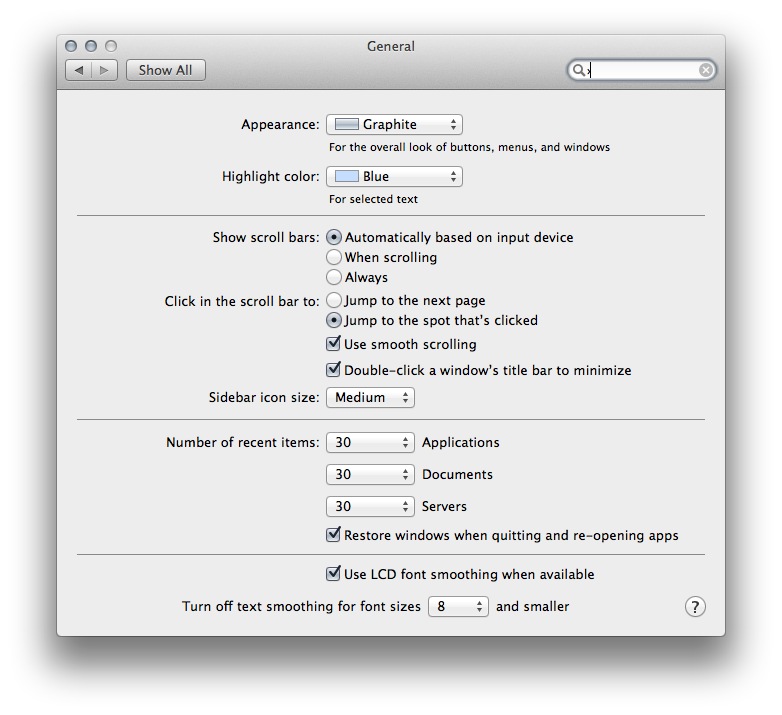
I just picked up my first Mac ever, one of the new 27 inch iMacs, but already I I've discovered what will likely be a deal breaker for me in regards to keeping it. I've noticed that the font rendering on web pages both in Safari and Chrome is strikingly different than how things look on PC. In fact, if this is how things are supposed to be I wonder how any professional develops websites on a Mac. Here's a look at what I'm talking about:
Now compare the same page to this PC version:
The PC version to me looks way better, and seems to be a better reflection of the designers intentions. Look at the text that says "We've got 1500 beta keys". You will notice on the PC version the text is thin but the mac version makes it look semi-bold. Same effect happens all over the place, like the words "This is a test". On the little side blurb with user info like my join date, last visit, ect. Mac makes it look bold again when it shouldn't. Even text that is supposed to be bold looks worse on Mac, such as the word "Related" which is a blurry mess (the "e"s are so blurry it's hard to make out that it is an e). The word Achievement is also far less clear on the Mac.
Couple of things going on here.
Important non-disputable fact #1:
Apple and Microsoft have always disagreed in how to display fonts on computer displays. Today, both companies are using sub-pixel rendering to coax sharper-looking fonts out of typical low resolution screens. Where they differ is in philosophy.
• Apple generally believes that the goal of the algorithm should be to preserve the design of the typeface as much as possible, even at the cost of a little bit of blurriness.
• Microsoft generally believes that the shape of each letter should be hammered into pixel boundaries to prevent blur and improve readability, even at the cost of not being true to the typeface.
Fact #2
Web developers cannot control 100% of the font smoothing, anti-aliasing and sub-pixel rendering even with a customizable font. This is controlled by the operating system and can be overridden in the browser via default font, default stylesheets, defining zoom levels and minimum font sizes that all override the developer's intentions.
Fact #3
Professional developers try to follow the best practice of coding independently of platform and browser when possible, accounting for variances due to browser engines and quirks or legacy concerns.
In your test, you used different browsers set to different heights and widths in different operating systems and noticed the variance which is far more obvious that way. But even if you had Chrome on both, same size and default settings for both browsers and OS's, the facts as I listed them above still apply and you'd still see variances. The point in my stating this is that there will always be variances in font rendering and blurriness, and the developer has no control over this.
Good developers also rely less on fonts in graphics to try to level the playing field due to bandwidth constraints and many other W3C best practices involved, so basic font declaration extended by CSS is how things are done these days, including responsive theming which will dynamically resize things to adapt to mobile vs. desktop which is also added into the mix.
This is my professional response to you, and I could care less what platform you use to develop. That choice should be based on IDE's and apps involved to get the job done. The end user does not care how it was created, just that it works.
I might add some followup based on other replies, but I'd like you to absorb what I said and really think about it. Please acknowledge if you feel, as I hope, that I am being fair and balanced?
Thank you for that reply it was very informative. I was afraid that was the case though. I think coming from 15 years of using a PC this will be a difficult thing to get used to. It just looks wrong to me and lessens the impression of what I consider an otherwise gorgeous product. I don't think the iPhone helps either with it's exceptionally sharp rendering of text. I was hoping the iMac would look just about the same in this regard.
While you are correct about the differences in width and height I did test this across a couple browsers. IE, as bad as it is in some cases, renders fonts the best to my eyes. It's as you said, very readable. Chrome on PC seems be have less aliasing or something, the fonts seem skinnier and less full. Safari and Chrome on Mac look pretty much identical, and in some cases they actually make fonts look a little curvier and nicer looking like on Facebook, but other times, typically bolded text, you get that blurry effect which reminds me of cheap LCD's.
I discovered that using Helvetica Neue Light improves sharpness a lot (weight 300 instead of 500). Try it.
You could add that to a user stylesheet.
Spare a thought for poor Windows users using Office 2013. MS appears to have abandoned ClearType in Office and it looks ghastly. The web is awash with complaints.